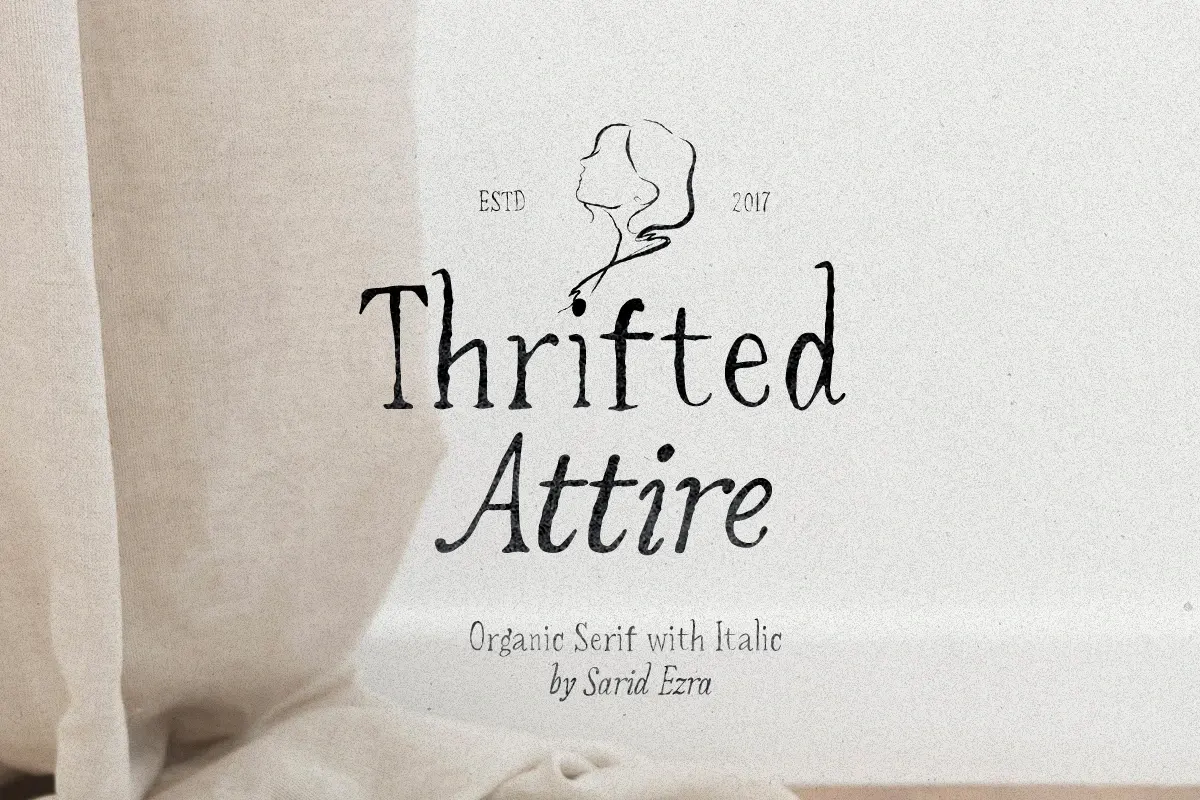
Thrifted Attire - Organic Serif Free Download
Thrifted Attire - Organic Serif Font Free Download is a beautifully crafted typeface that blends rustic charm with modern sophistication. With its organic, hand-drawn details and strong serif structure, Thrifted Attire is perfect for vintage-inspired branding, eco-friendly product packaging, editorial layouts, and any project that seeks to evoke a natural, authentic vibe.
Thrifted Attire - Organic Serif Font Free Download brings a unique touch of personality to your designs, combining elegance with an earthy feel. Whether you're working on a sustainable brand identity, creating a stylish magazine spread, or designing organic food packaging, this font enhances your typography with its refined yet earthy style. Download it today and incorporate a beautifully organic touch into your next project!